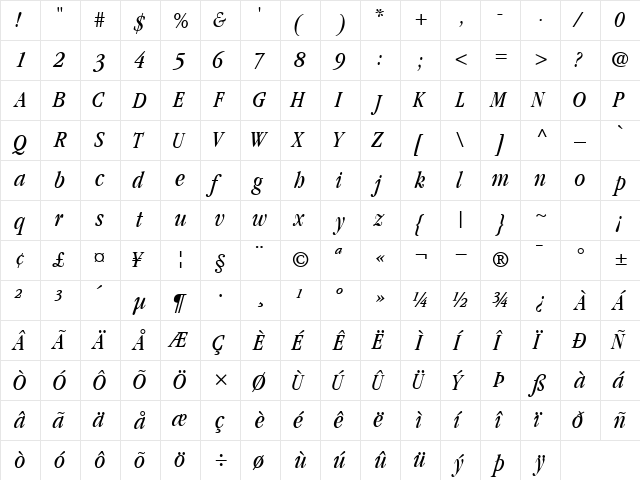
GaramondCondSSK Italic Font Preview
Design Context for GaramondCondSSK Typeface
GaramondCondSSK offers clean, dependable letterforms without strong stylistic allegiance, making it a practical choice for designers who need flexibility. The slanted form adds forward momentum and visual energy. Its narrow stance lets it pack a punch even in space-constrained designs.